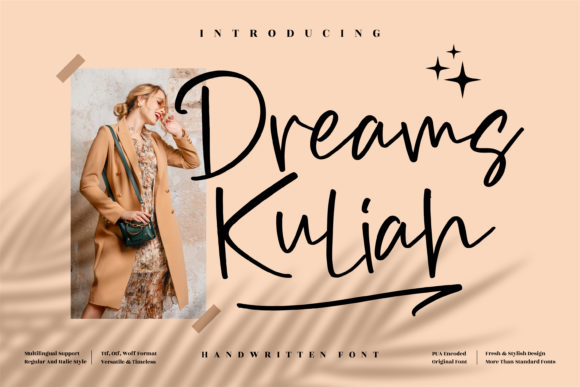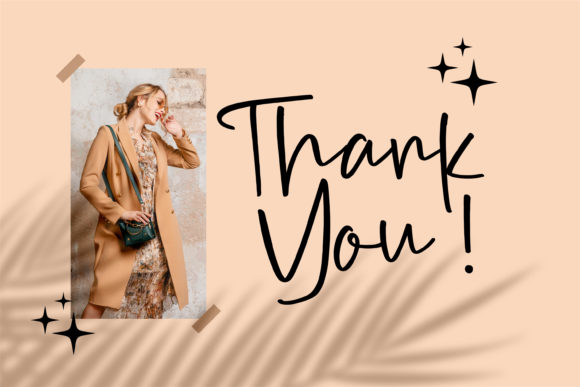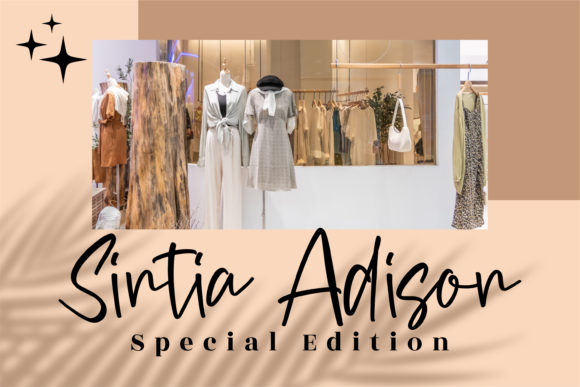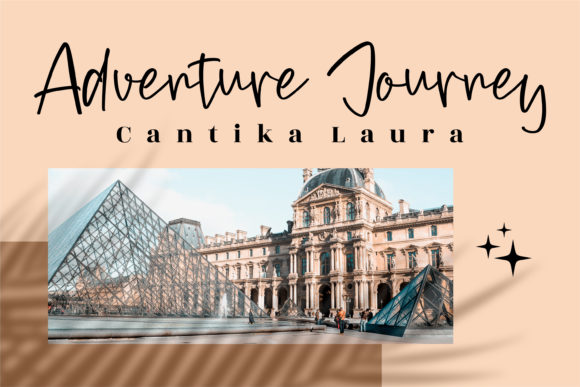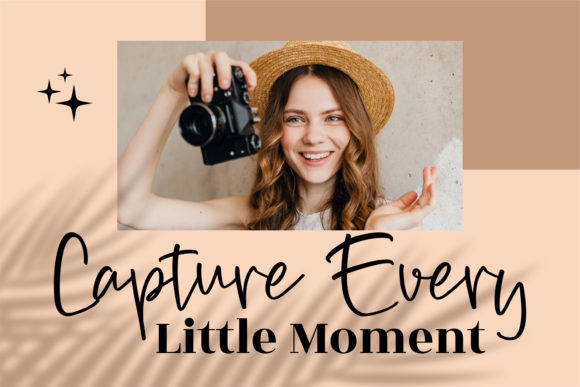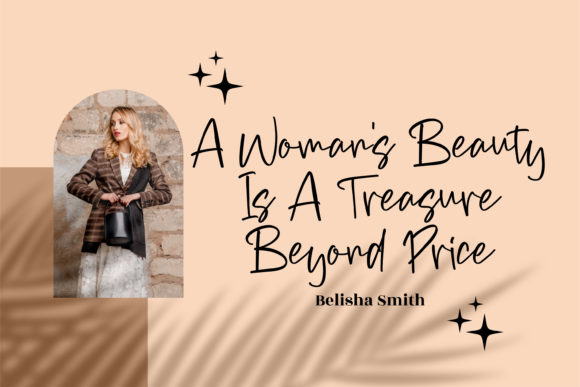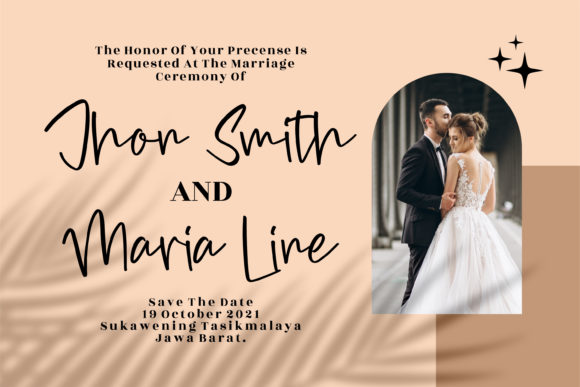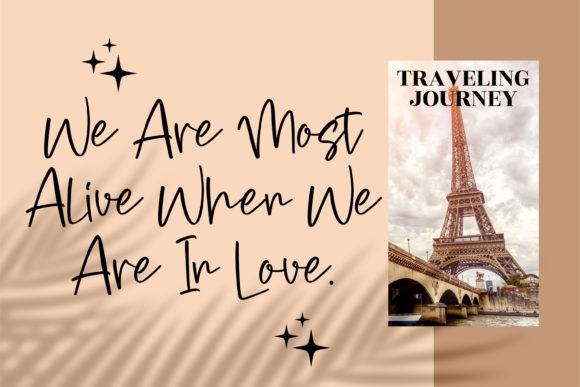
Dreams Kuliah Font
About Dreams Kuliah Font
Dreams Kuliah is a relaxed and whimsical script font. This versatile script font has a wide spectrum of applications ranging from greeting cards to headlines and is guaranteed to add a romantic feel to your next project.